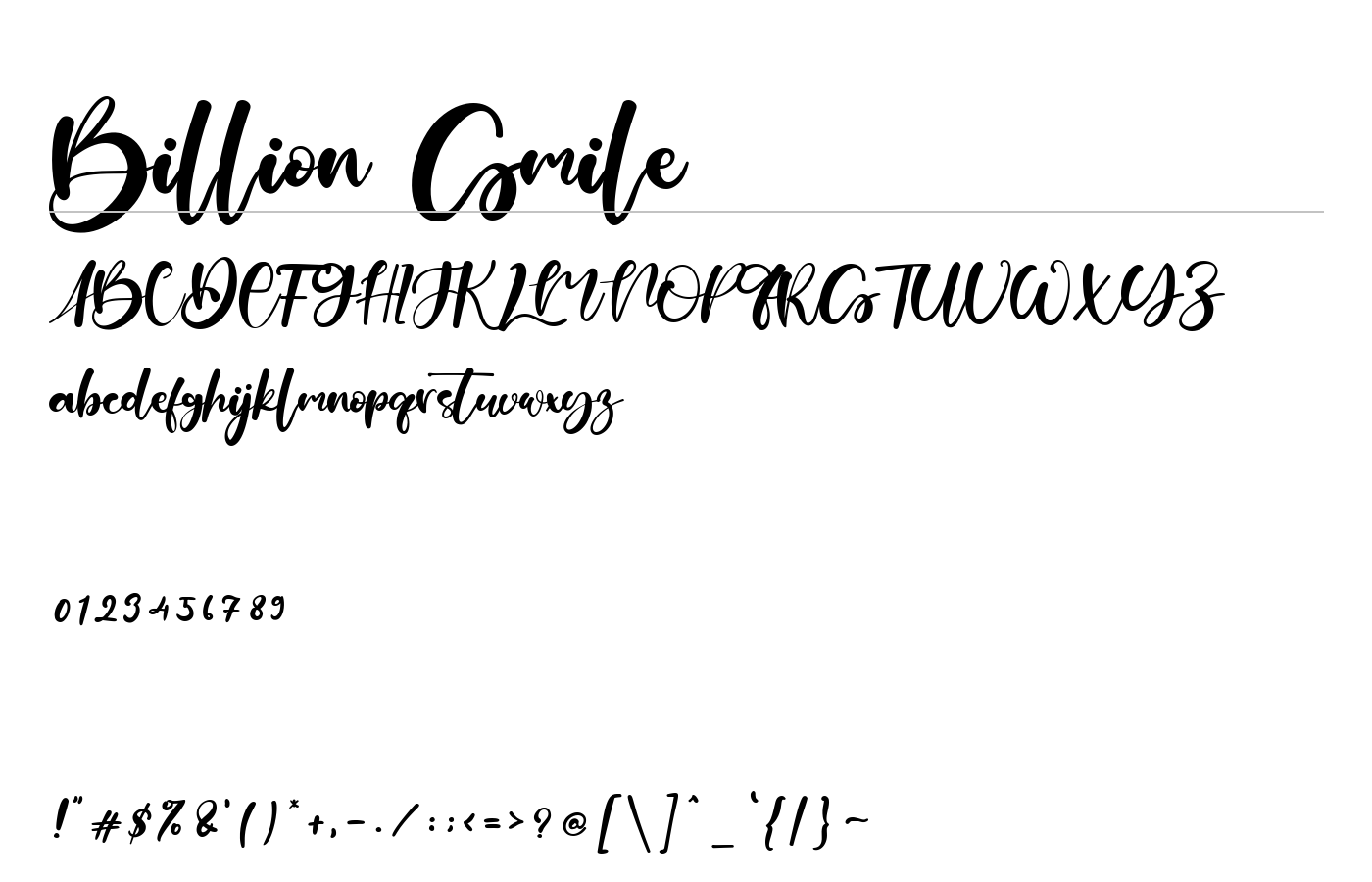
Billion Smile is a stylish script font with a lively, hand-lettered feel, featuring smooth, flowing strokes that give it a friendly and elegant personality. Its bold yet airy letterforms work beautifully for branding, invitations, and creative projects needing a modern yet warm touch. This font shines in headline use where a personal, approachable vibe is key.
Billion Smile Font
About Billion Smile Font